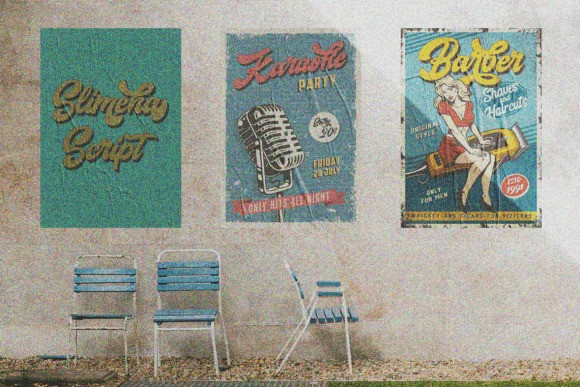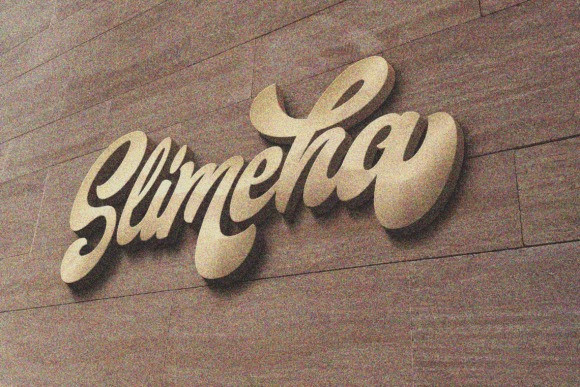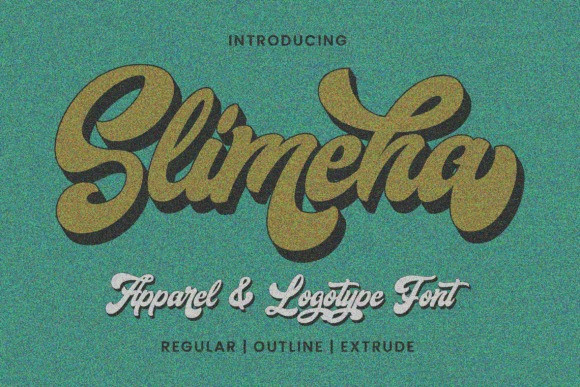
Slimeha Font
Slimeha Script Font is a bold and modern handwritten font capable of taking any creation to the highest levels! Try it on advertisements, posters, branding materials, logos, etc. Slimeha is PUA encoded, which means you can access all glyphs and swashes with ease!